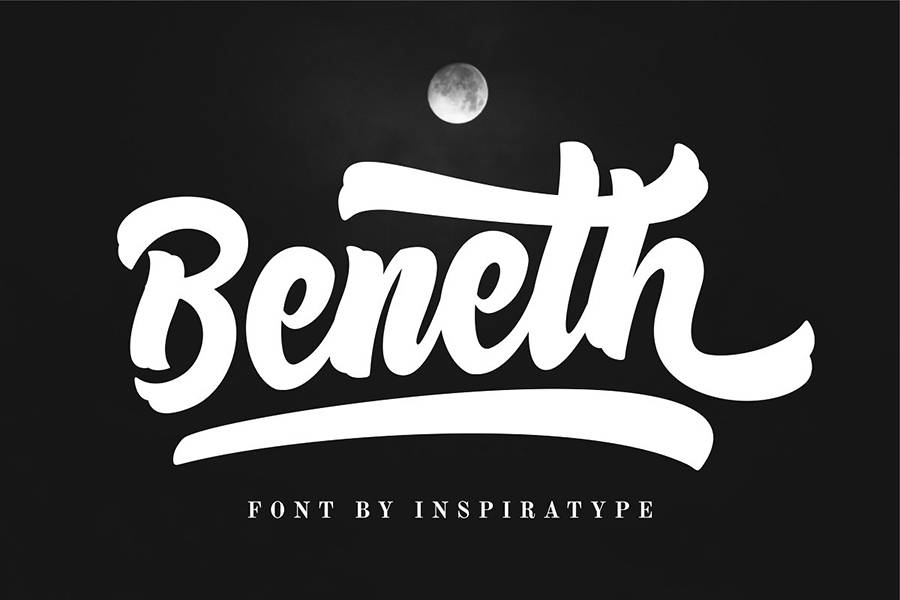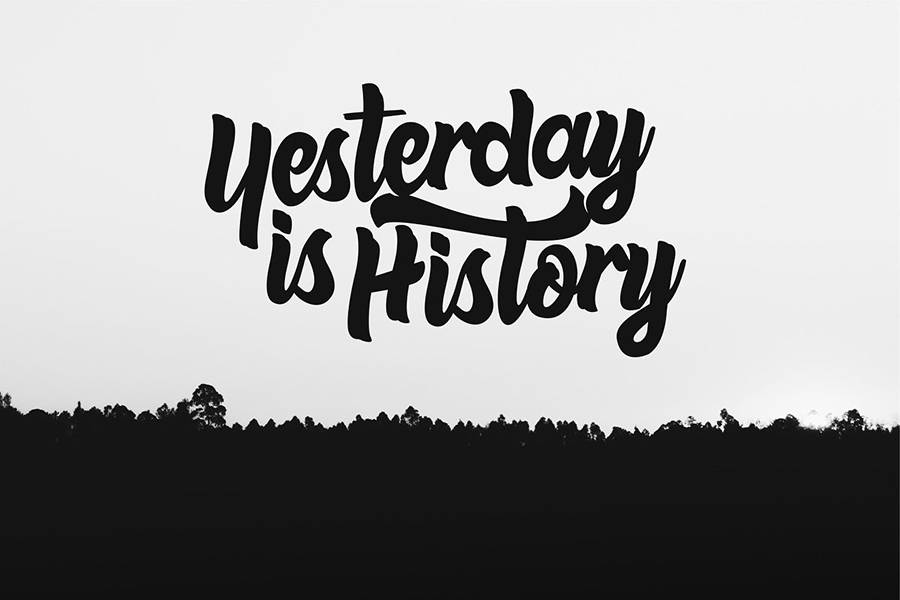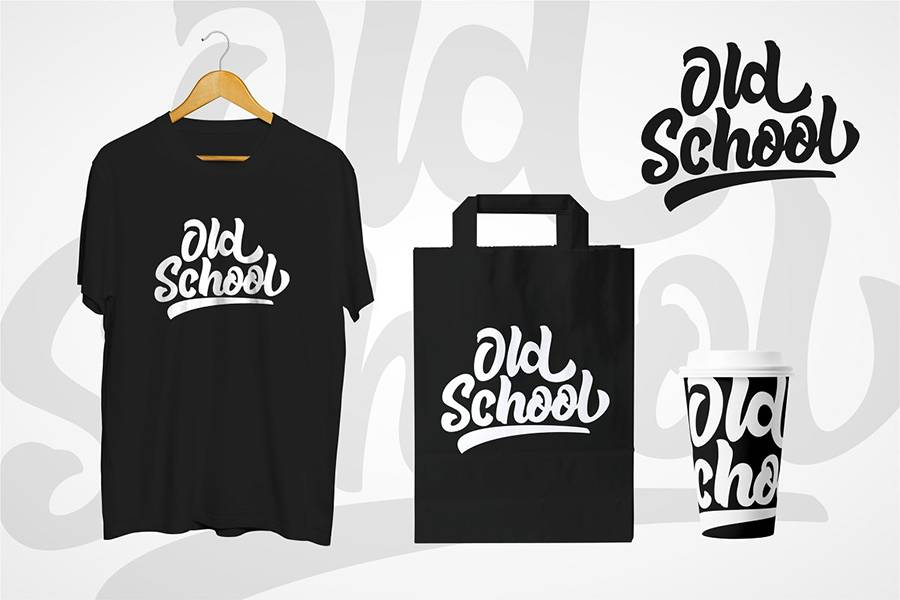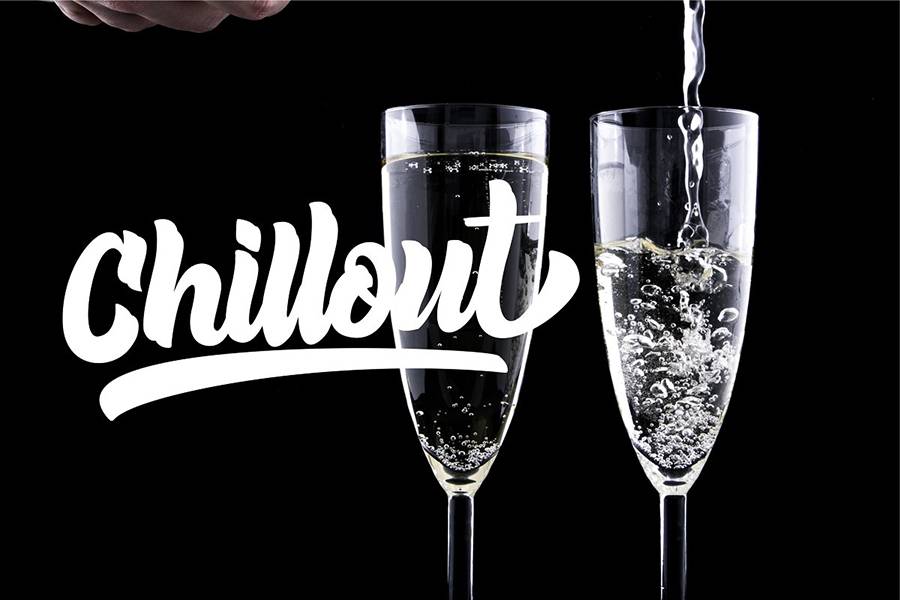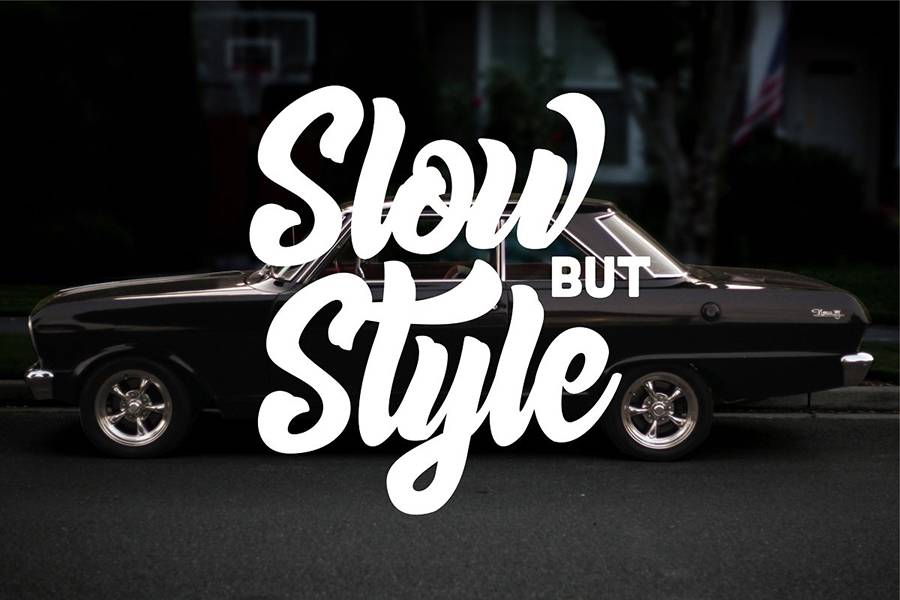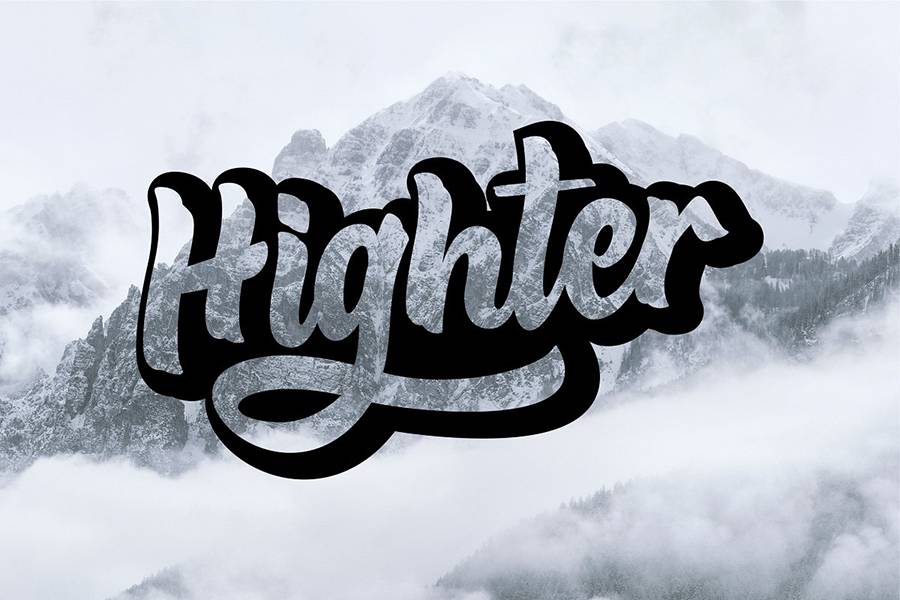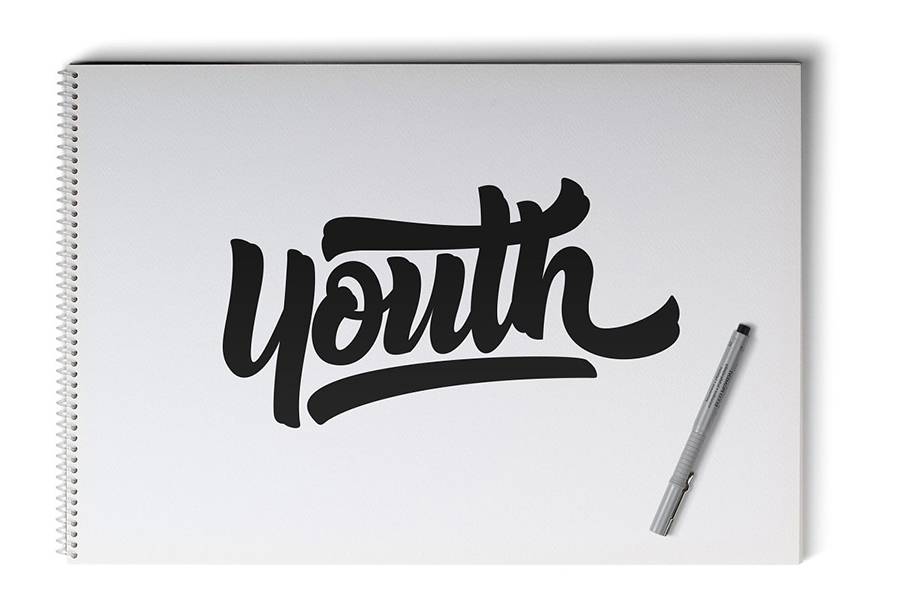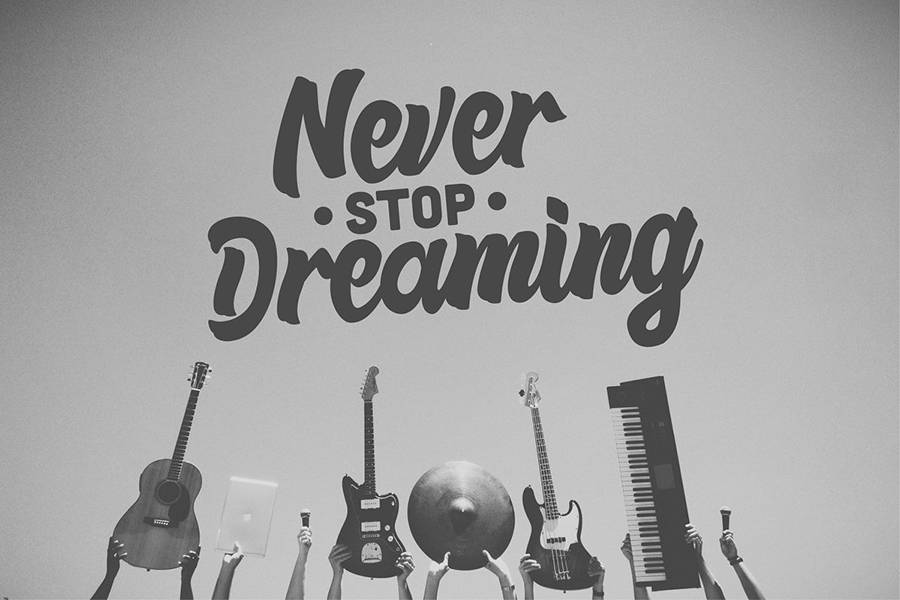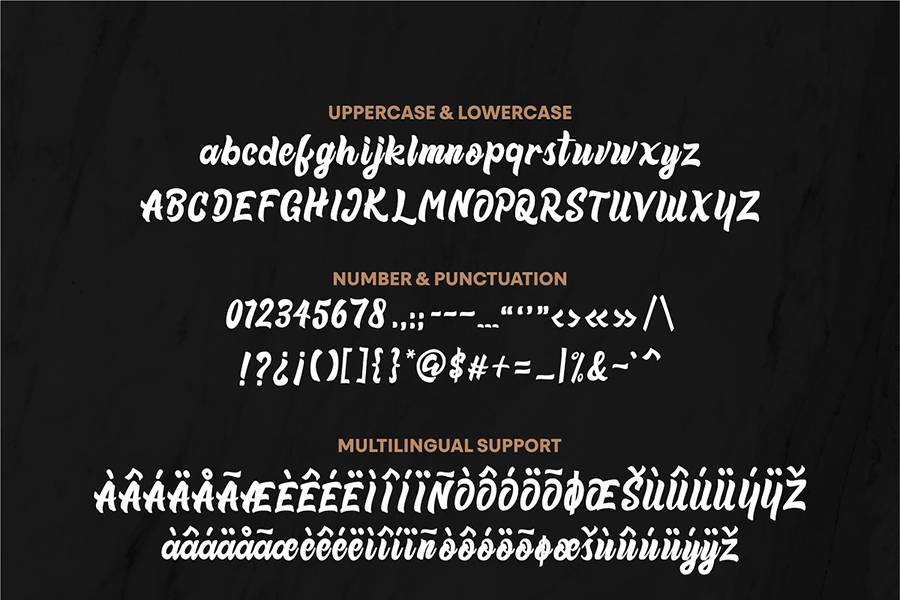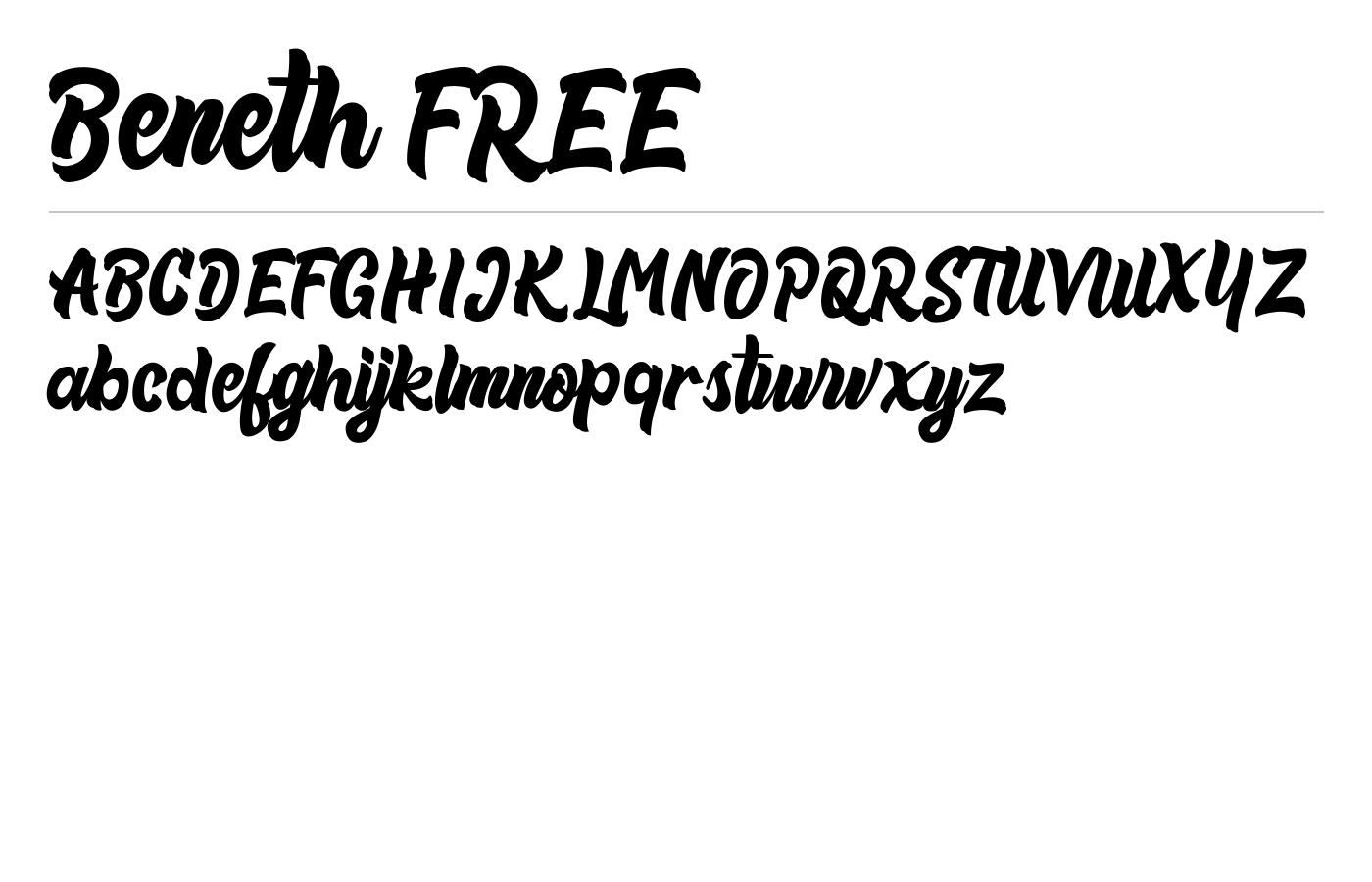
Beneth Handlettering Script is a bold and lively script font that mimics natural brush lettering with smooth, flowing strokes and moderate contrast. Its playful yet confident style suits creative branding, packaging, and eye-catching headlines, bringing a friendly and handcrafted feel to designs. This font works well where a personal, energetic touch is desired without sacrificing readability.
Beneth Handlettering Script Font
About Beneth Handlettering Script Font
| Font family | Beneth Handlettering Script Font |
| Designer | inspiratype |